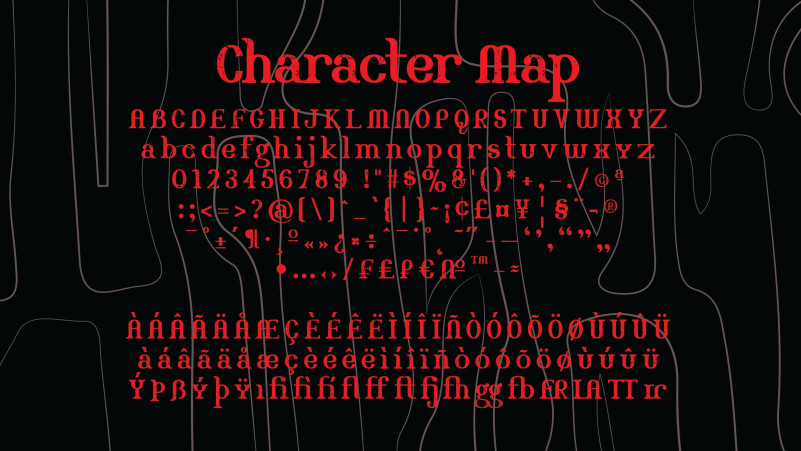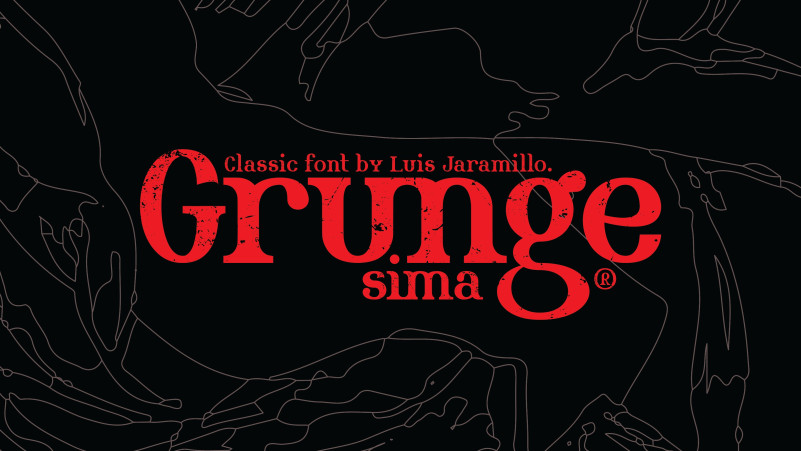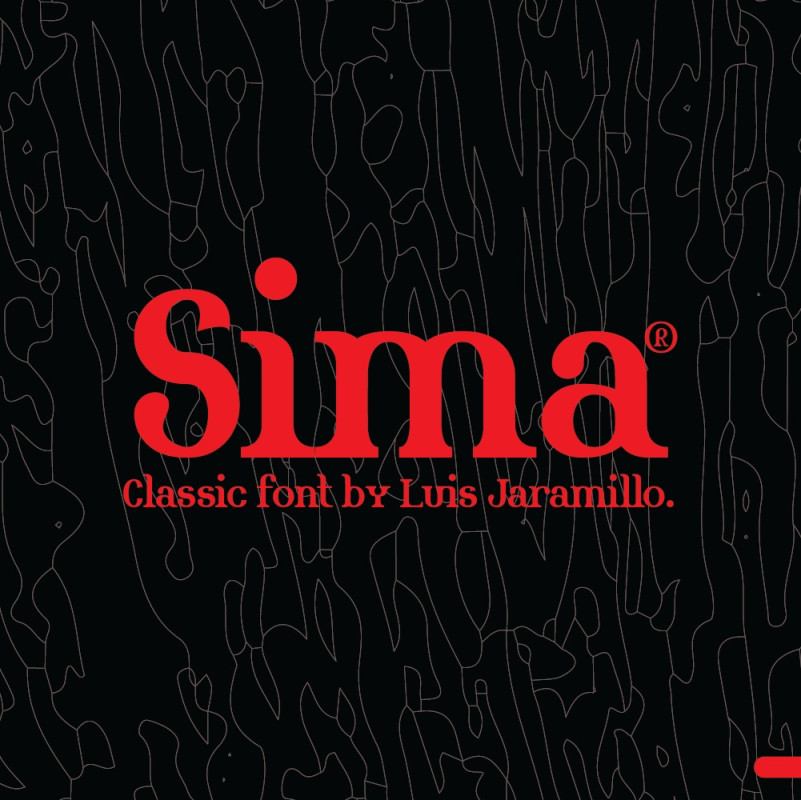
Sima Font
Sima Font is a classic-serif typeface adapted to a custom style, and in two font families, perfect for decoration, formality and paragraph writing. The grunge style is perfect for decorative texts, logos, and more.